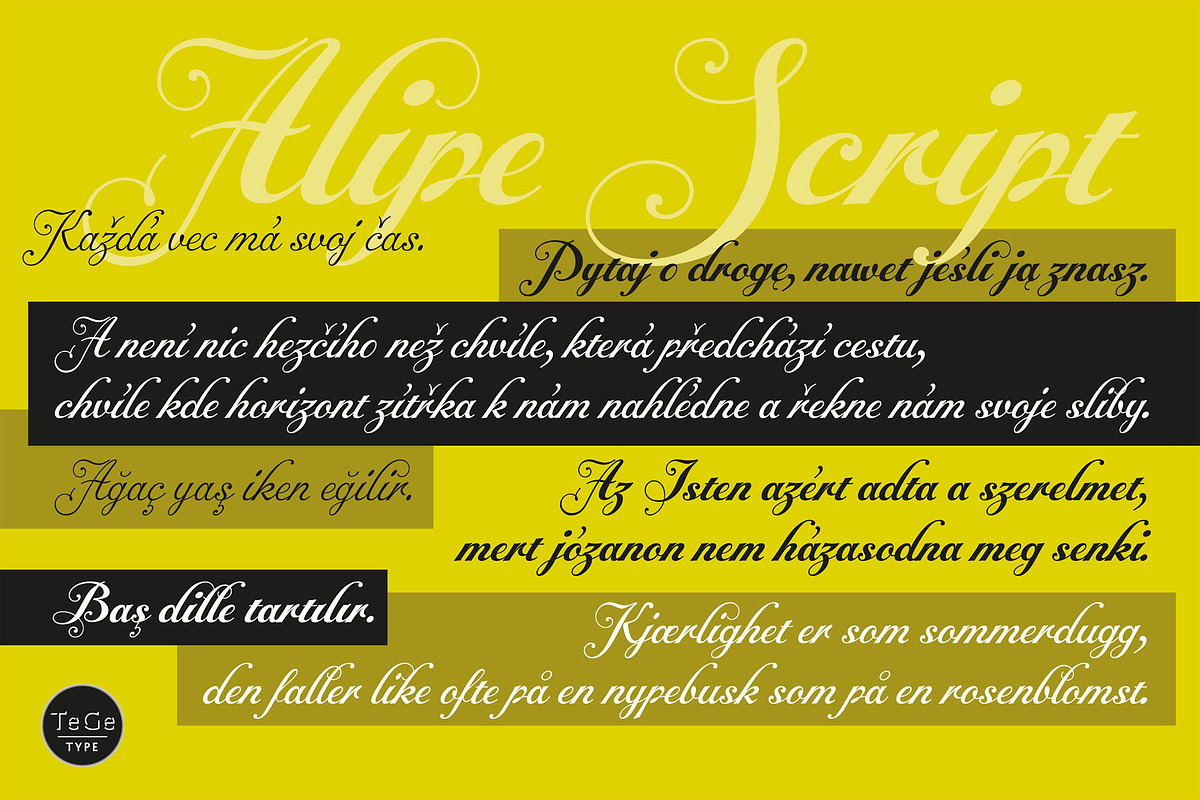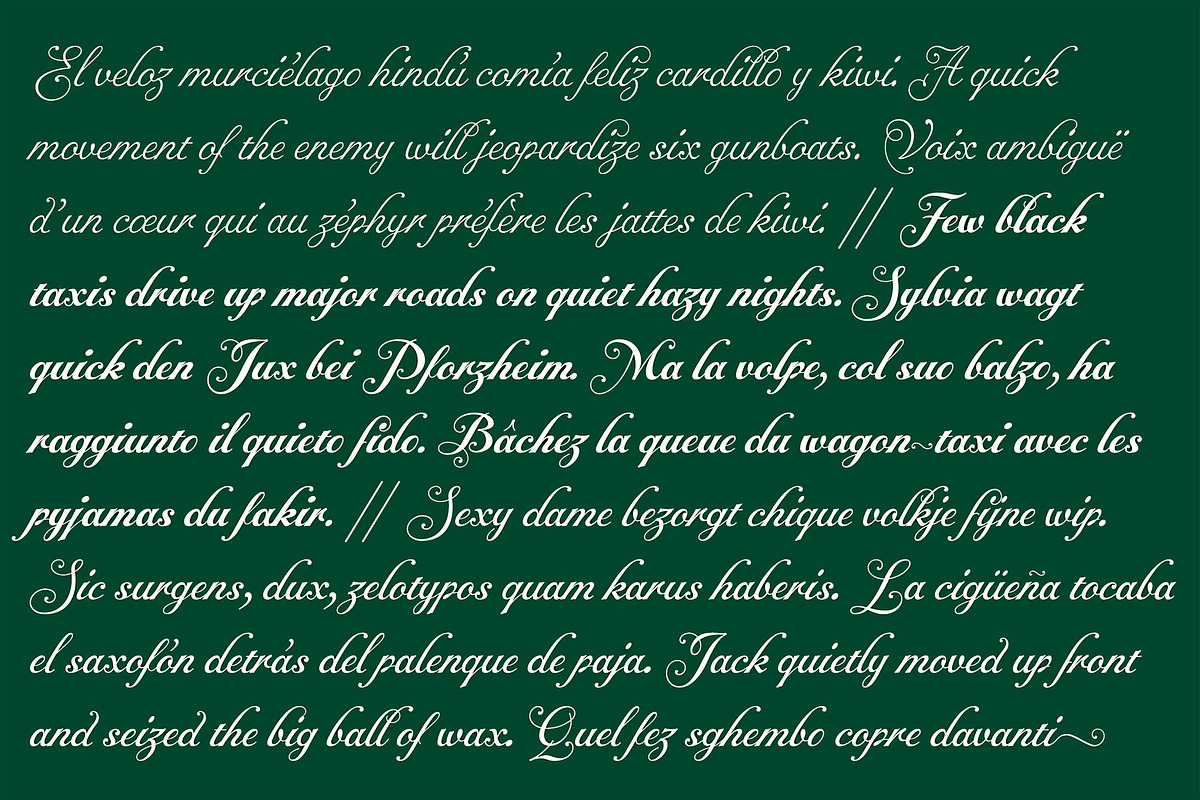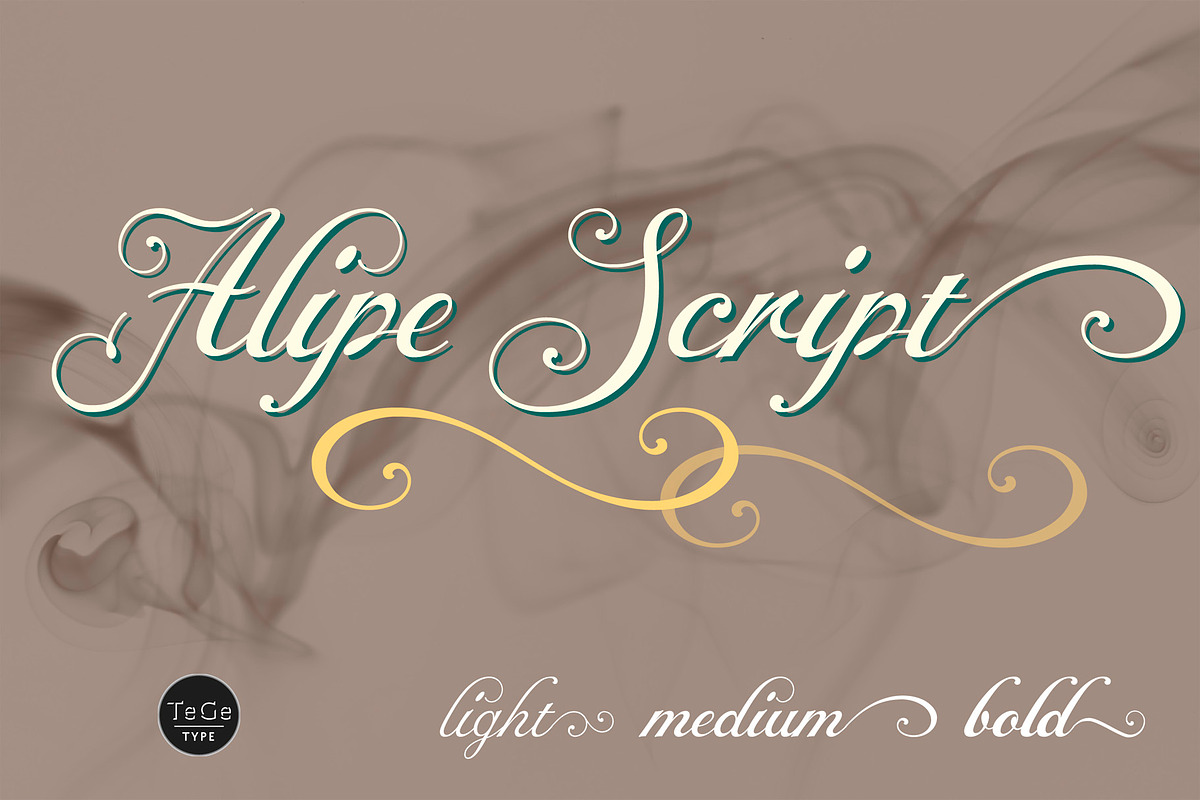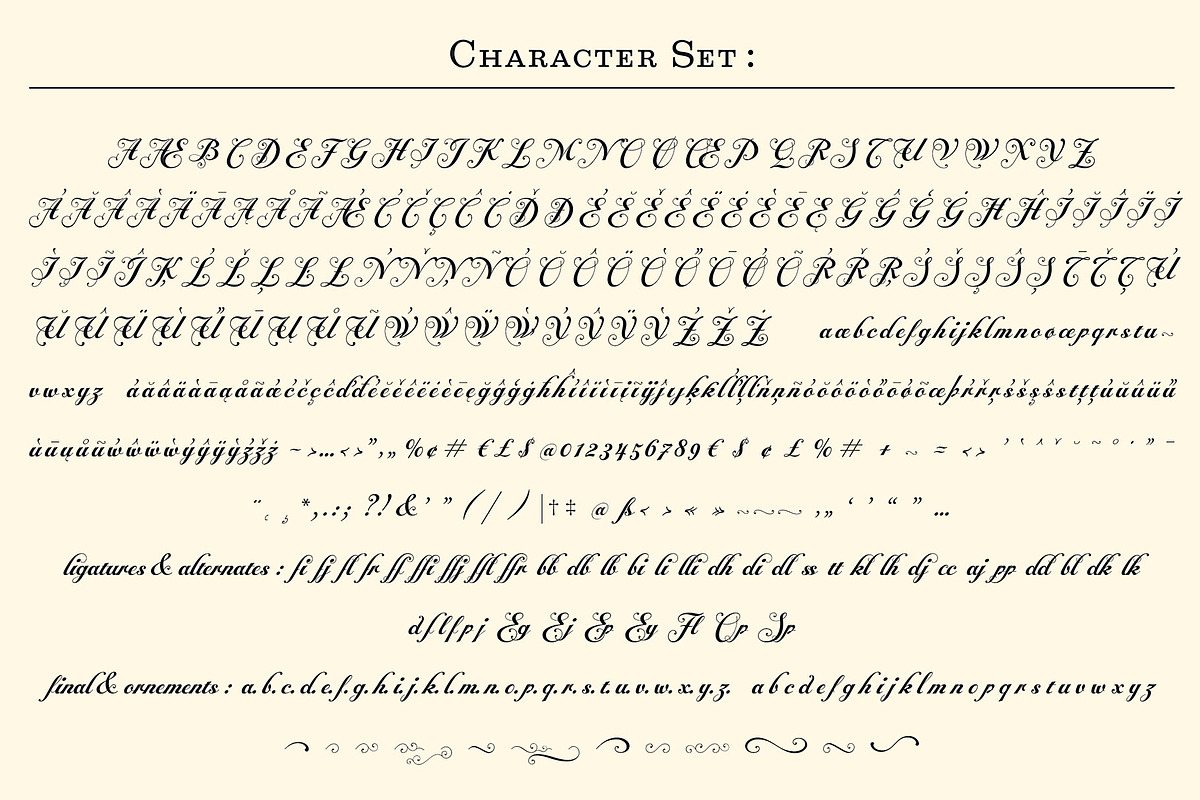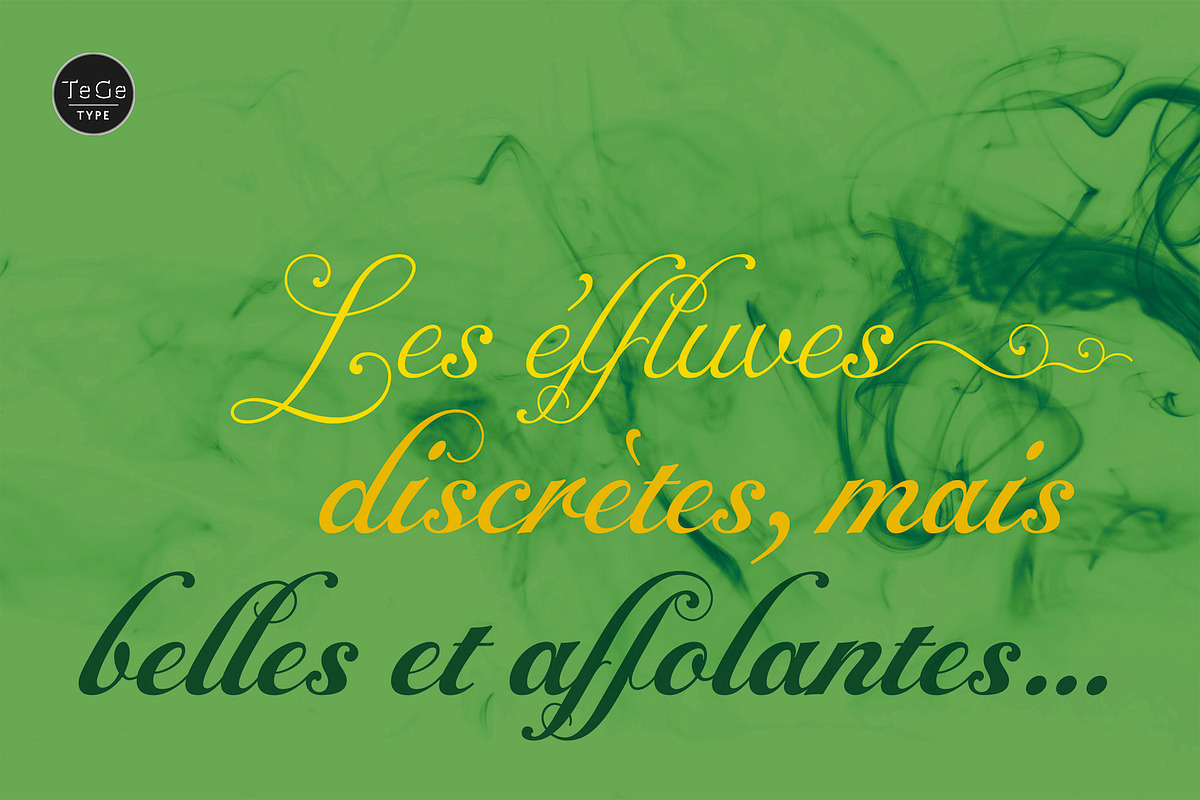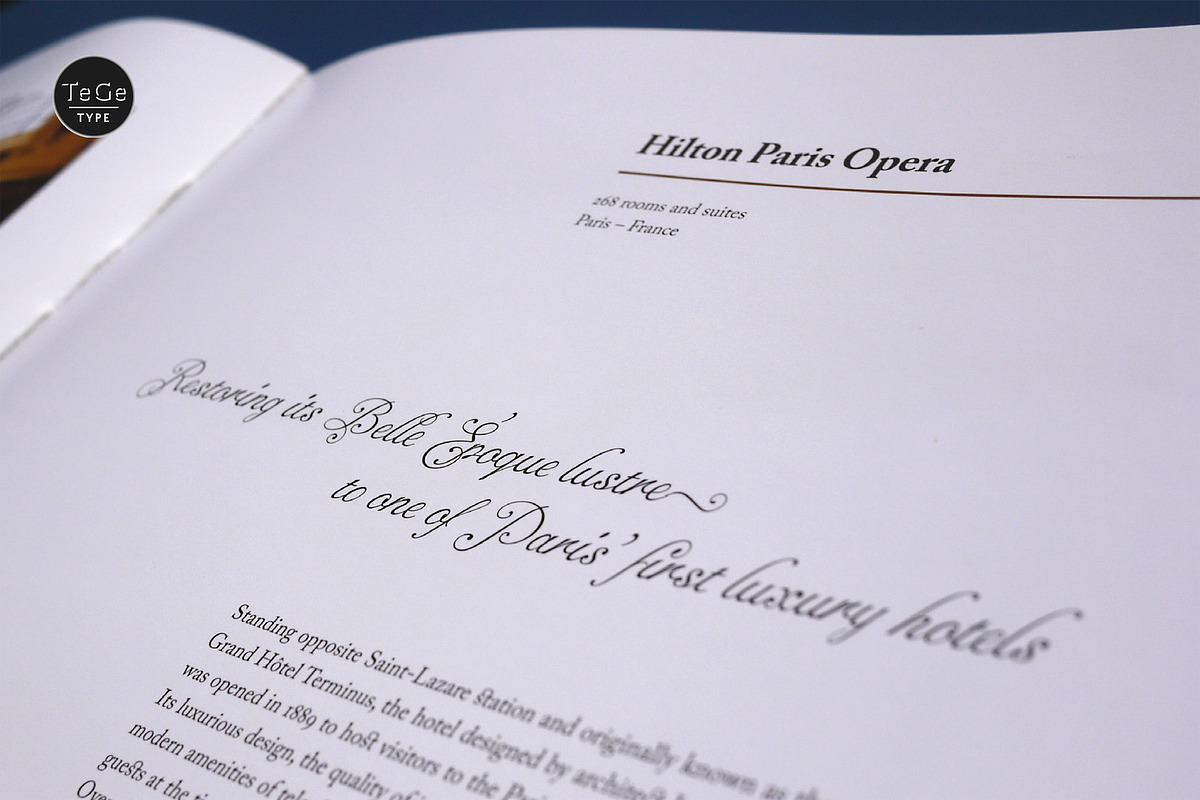
Alipe Script
Alipe Script is a new script typefaces family. Alipe Script family has light, medium and bold fonts, all with ligatures, alternates and a set of ornaments. It can be used for text as well as for titling applications.